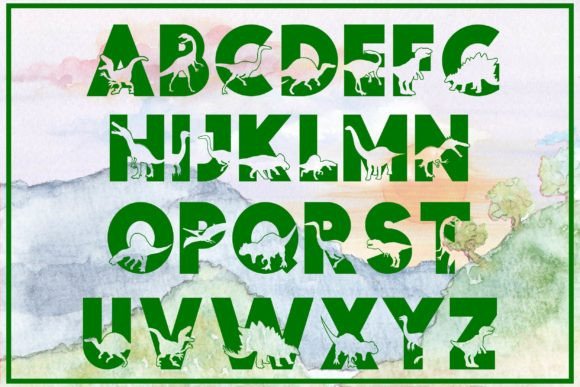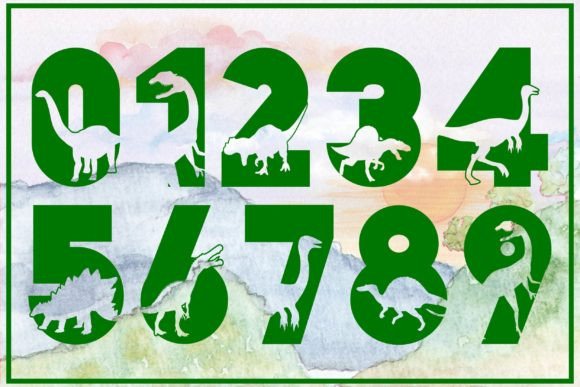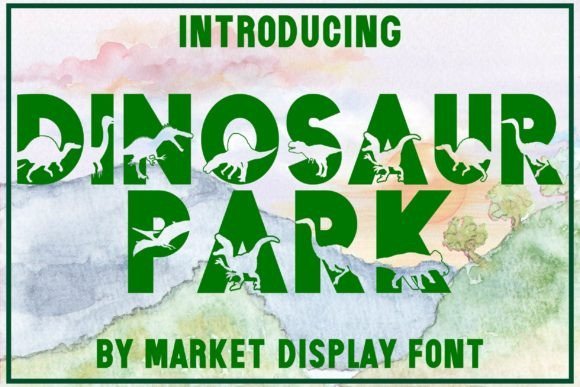
Introduction to Dinosaur Park Font
Dinosaur Park is a fun and chunky lettered decorative font, featuring lovely dinosaurs as ornaments.
This original look will appeal to a wide range of crafty ideas, from letterheads and titles to stationery .
Key Features of Dinosaur Park Font